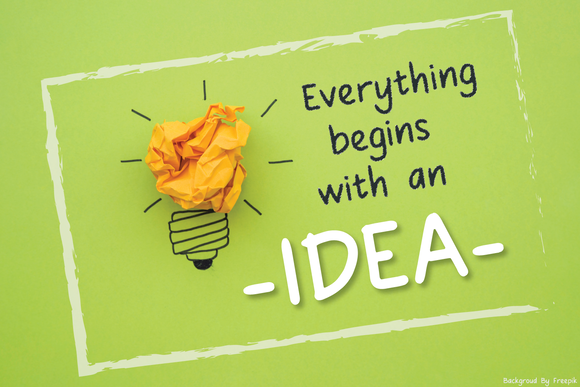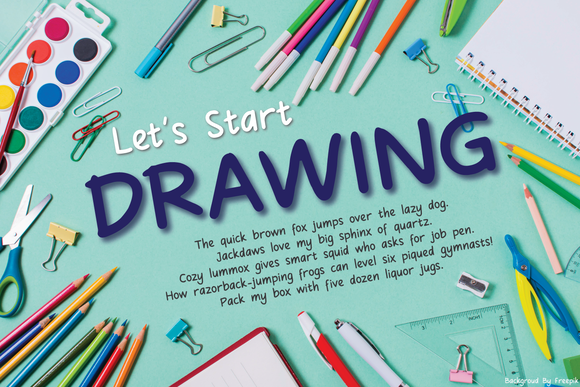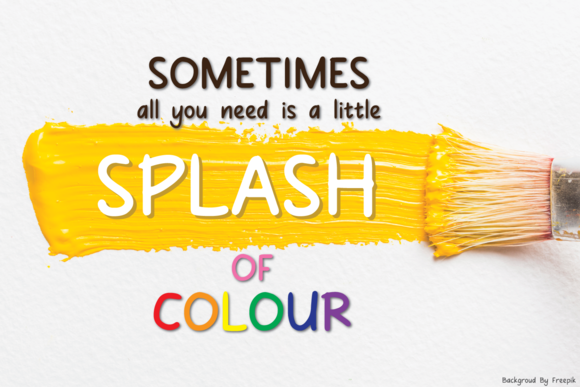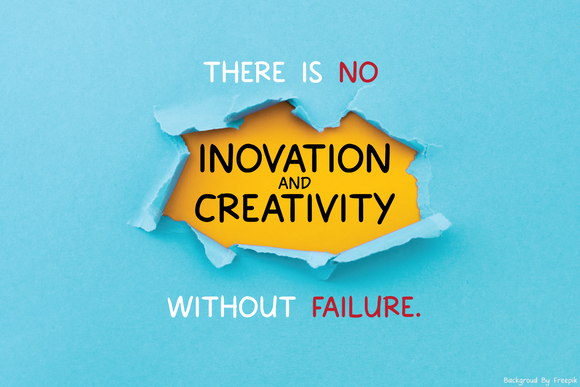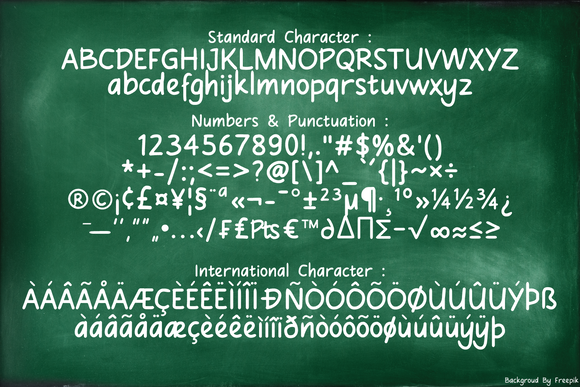
Introducing Comicbon Font: The Simple and Natural Handwritten Font for Creative Projects
Are you a designer or crafter looking for a unique and versatile font to elevate your creative projects? Look no further than Comicbon Font, a simple and natural handwritten font that’s perfect for a wide range of applications. In this article, we’ll explore the features and benefits of Comicbon Font, and show you how it can be used to add a personal touch to your branding, product packaging, invitations, quotes, t-shirts, labels, posters, logos, and more.
What is Comicbon Font?
Comicbon Font is a beautifully crafted handwritten font that’s designed to be simple, yet elegant. Its natural and effortless style makes it perfect for creating a personal and approachable feel in your designs. Whether you’re working on a branding project, creating product packaging, or designing an invitation, Comicbon Font is the perfect choice.
Key Features of Comicbon Font
- Simple and Natural Style: Comicbon Font has a simple and natural handwritten style that’s perfect for creating a personal and approachable feel in your designs.
- Versatile: This font is suitable for a wide range of applications, including branding, product packaging, invitations, quotes, t-shirts, labels, posters, logos, and more.
- Easily Readable: Comicbon Font is designed to be easily readable, making it perfect for body text, headings, and titles.
- Unique and Creative: With its unique and creative style, Comicbon Font is sure to make your designs stand out from the crowd.
Benefits of Using Comicbon Font
So why choose Comicbon Font for your creative projects? Here are just a few benefits of using this amazing font:
- Adds a Personal Touch: Comicbon Font adds a personal and human touch to your designs, making them more relatable and engaging.
- Enhances Brand Identity: With its unique and creative style, Comicbon Font can help to enhance your brand identity and make your brand more memorable.
- Increases Readability: This font is designed to be easily readable, making it perfect for body text, headings, and titles.
- Versatile and Flexible: Comicbon Font can be used in a wide range of applications, from digital designs to print materials.
How to Use Comicbon Font in Your Designs
Using Comicbon Font in your designs is easy! Here are a few tips to get you started:
- Pair it with Other Fonts: Comicbon Font pairs well with other fonts, so feel free to experiment with different combinations to create a unique look.
- Use it for Headings and Titles: This font is perfect for headings and titles, where you want to make a bold statement.
- Add it to Your Branding Materials: Use Comicbon Font in your branding materials, such as your logo, business cards, and letterhead.
- Experiment with Different Colors: Try out different colors with Comicbon Font to create a unique and eye-catching design.
In conclusion, Comicbon Font is a simple and natural handwritten font that’s perfect for creative projects. Its unique and creative style makes it suitable for a wide range of applications, from branding and product packaging to invitations and quotes. With its easily readable design and versatile style, Comicbon Font is sure to become a favorite among designers and crafters. So why wait? Download Comicbon Font today and start adding a personal touch to your designs!
Whether you’re a seasoned designer or a crafty DIY enthusiast, Comicbon Font is the perfect choice for your next creative project. So go ahead, get creative, and see what amazing designs you can come up with using this amazing font!